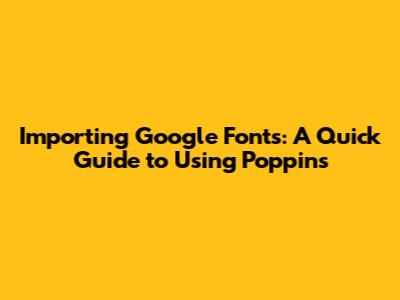
Importing Google Fonts: A Quick Guide To Using Poppins
Hey guys! Ever wondered how to make your website or design project pop with beautiful typography? Well, one of the easiest ways to do that is by using Google Fonts, and in this article, we're going to dive deep into how to import the ever-popular Poppins font. Trust me; it's simpler than you think! So, grab your favorite beverage, get comfy, and let's get started!
Why Choose Poppins?
Poppins is a geometric sans-serif typeface that has gained immense popularity among designers and developers alike. Its clean, modern, and versatile design makes it an excellent choice for a wide range of projects. Whether you're working on a sleek corporate website, a trendy blog, or even a mobile app, Poppins can add that touch of sophistication and readability you're looking for.
But why exactly is Poppins so beloved? Let's break it down:
• Readability: Poppins is designed with clarity in mind. Its letterforms are distinct and well-spaced, making it easy on the eyes, even at smaller sizes. This is crucial for ensuring your content is accessible and enjoyable to read.
• Versatility: This font family comes in a variety of weights, from thin to extra-bold, giving you plenty of options to play with. You can use it for headings, body text, captions, and more, all while maintaining a consistent and harmonious look.
• Modern Aesthetic: With its geometric structure and clean lines, Poppins exudes a contemporary vibe. It aligns perfectly with modern design trends, making it a go-to choice for projects that need a fresh and up-to-date feel.
So, now that we've established why Poppins is such a fantastic font, let's move on to the main event: how to import it into your projects.
Note: While @import is convenient, it can sometimes slow down page loading times, especially if you have multiple @import statements. Using <link> is generally recommended for better performance.
5. Apply the Font in Your CSS:
Now that you've embedded Poppins, you can start using it in your CSS. Use the font-family property to specify Poppins as the font for your desired elements. For example:
Remember to include sans-serif as a fallback font in case Poppins doesn't load for some reason. This ensures your text remains readable.
Method 2: Using Google Fonts API with JavaScript
For more advanced control over font loading, you can use the Google Fonts API with JavaScript. This method allows you to detect when the font has loaded and perform actions accordingly. Here’s how:
1. Include the Web Font Loader:
Add the following script to your HTML file, preferably before the closing </body> tag:
Conclusion
And there you have it! A comprehensive guide to importing the Poppins font into your projects. Whether you choose to use the Google Fonts website, the Google Fonts API, or host the font files locally, you now have the knowledge and tools to make your designs shine with this beautiful and versatile typeface. So go ahead, experiment with different styles and weights, and see how Poppins can elevate your next project. Happy designing, guys!